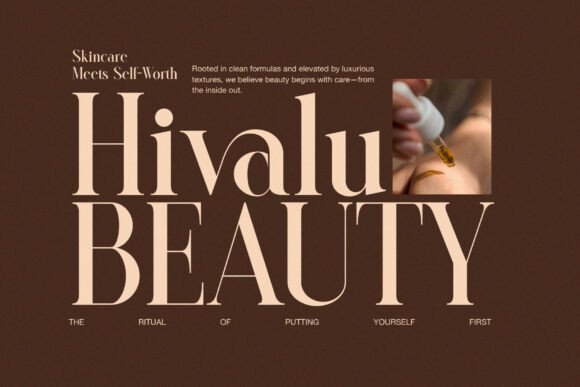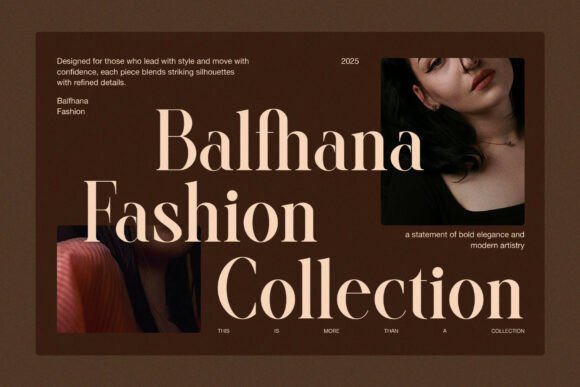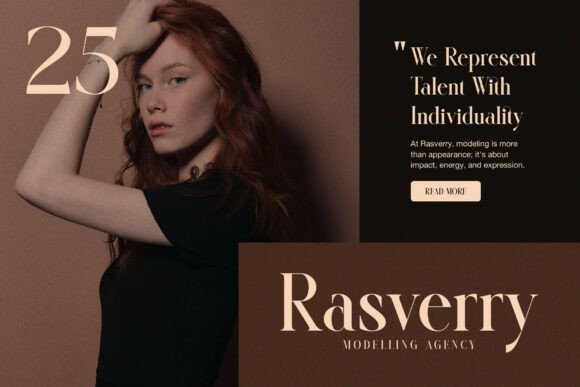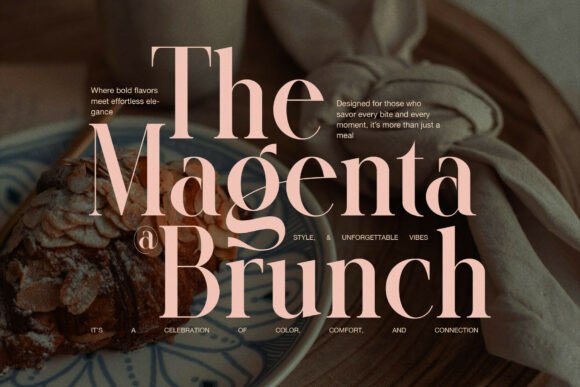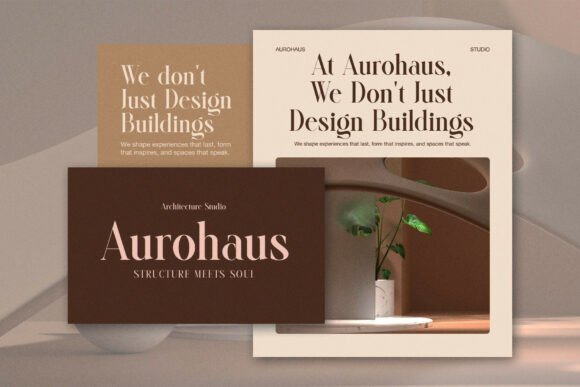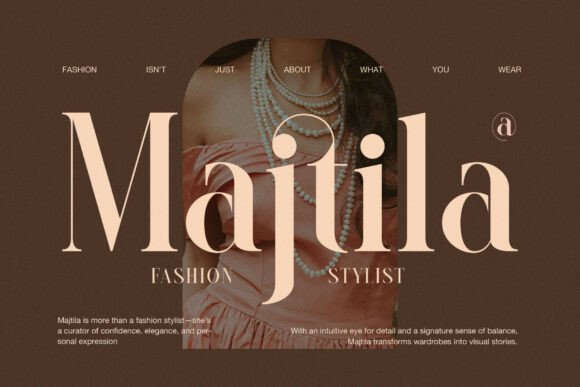
Graget Elegant Serif Font – Modern Elegance for All Your Branding Needs
In the world of design, typography plays a crucial role in conveying a brand’s message and aesthetic. A well-chosen font can elevate your brand’s identity, making it more memorable and engaging. If you’re looking for a typeface that exudes sophistication and style, look no further than the Graget Elegant Serif Font. This clean and modern serif font is designed to bring a touch of elegance to your branding, making it perfect for a variety of design projects.
What Makes Graget Stand Out?
Graget Elegant Serif Font boasts balanced and proportional shapes that work harmoniously to create a polished and professional look. Its modern serif design ensures that your text is not only readable but also visually appealing. Whether you’re creating logos, branding materials, websites, magazines, or product packaging, Graget adds a refined touch that makes your work stand out.
Key Features of Graget Font
- Clean and Modern Design: Graget’s sleek and contemporary design makes it perfect for brands looking to convey a sense of sophistication and elegance.
- Balanced and Proportional Shapes: The font’s well-crafted shapes ensure that your text is easy to read and visually appealing.
- Functional Ligatures: Graget features functional ligatures that improve readability and add a unique flair to your designs.
- Versatility: This font is versatile enough for use in diverse industries, including boutiques, food brands, advertising, and more.
Ideal Applications for Graget Font
Graget Elegant Serif Font is suitable for a wide range of design projects. Here are some ideal applications:
- Business Logos and Brand Identity: Use Graget to create a lasting impression with your business logo and brand materials.
- Website Headlines and Layouts: Add a touch of elegance to your website’s headlines and layout with Graget.
- Magazine Designs and Editorial Content: Graget is perfect for magazine designs, making your editorial content more engaging and refined.
- Product Labels and Packaging: Elevate your product labels and packaging with Graget’s sophisticated design.
- Advertising Campaigns and Promotional Materials: Use Graget to create eye-catching advertising campaigns and promotional materials.
- Fashion Boutiques and Lifestyle: Graget is ideal for fashion boutiques and lifestyle brands looking to convey a sense of luxury and elegance.
Benefits of Using Graget Font
By choosing Graget Elegant Serif Font for your design projects, you can enjoy several benefits:
- Improved Readability: Graget’s clean design and functional ligatures ensure that your text is easy to read.
- Enhanced Visual Appeal: The font’s modern serif design adds a touch of sophistication to your designs.
- Versatility: Graget can be used in a variety of design projects, making it a valuable addition to your font collection.
- Time-Saving: With Graget, you can create professional-looking designs quickly and efficiently.
In conclusion, Graget Elegant Serif Font is a versatile and sophisticated typeface that can elevate your brand’s identity. Its clean and modern design, balanced shapes, and functional ligatures make it perfect for a variety of design projects. Whether you’re a designer, craftsperson, or business owner, Graget is an excellent choice for adding a touch of elegance to your branding. With its wide range of applications and benefits, Graget is sure to become a valuable addition to your font collection.